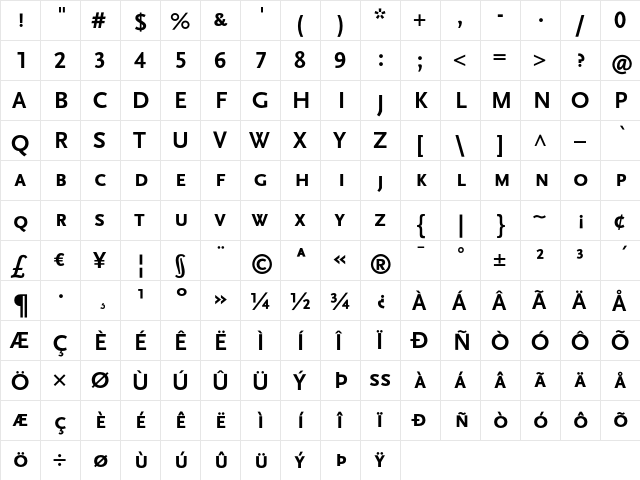
ScalaSans Caps Bold
Design Context for ScalaSans Caps Typeface
ScalaSans Caps offers clean, dependable letterforms without strong stylistic allegiance, making it a practical choice for designers who need flexibility. Its bold stroke weight gives it real presence on the page.
Pro Tip: Use ScalaSans Caps in both headline and body roles to test its range before committing to a single application.